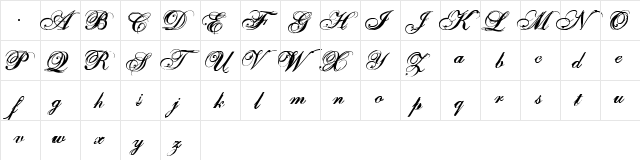
One Fell Swoop Regular Font Preview
One Fell Swoop Regular
Design Context for One Fell Swoop Typeface
One Fell Swoop is a composed and adaptable typeface that performs quietly and consistently across a wide range of design contexts.